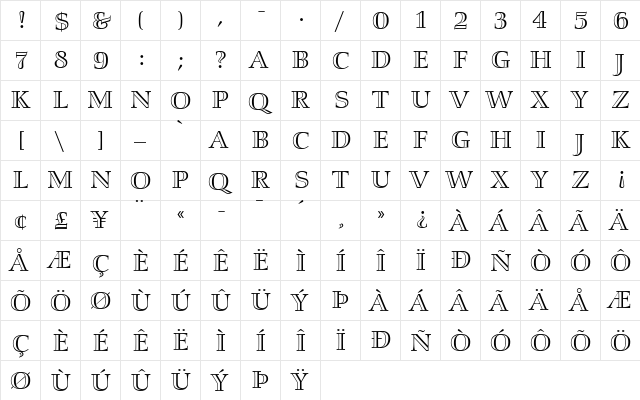
Smaragd Regular
Design Context for Smaragd Typeface
Smaragd takes a measured approach to typography — its balanced proportions and neutral character make it a reliable workhorse for both digital and print work.